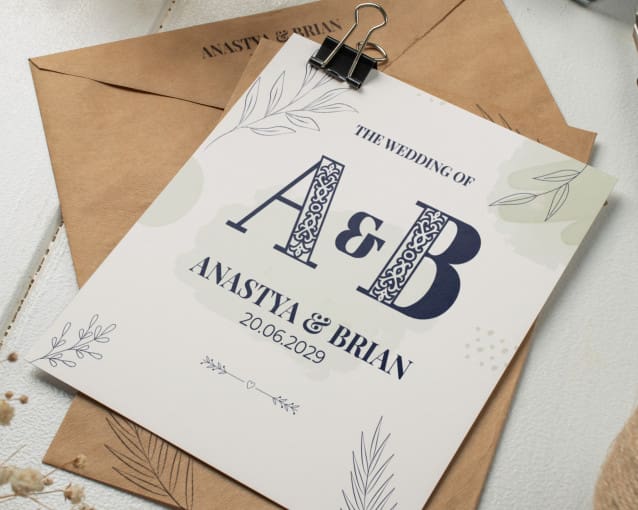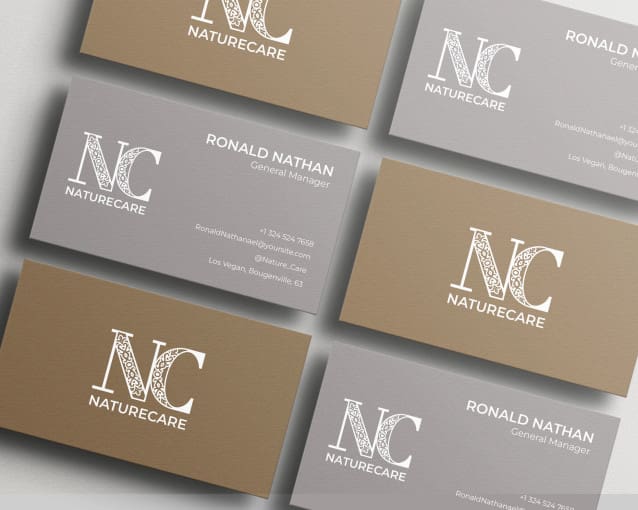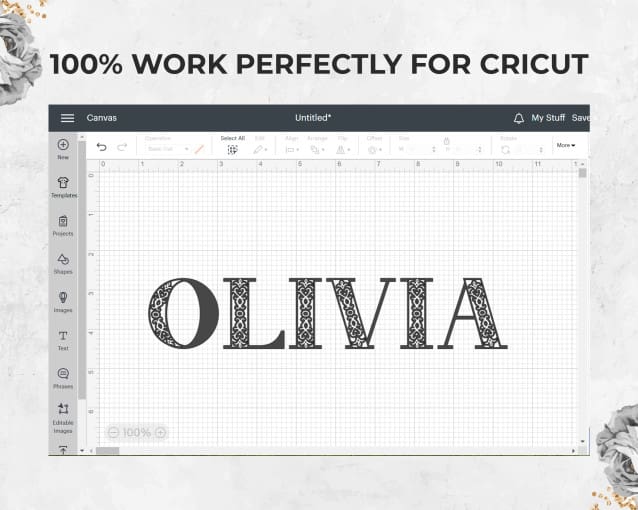
Decorative Olivia Font
Decorative Olivia Font is a typeface that exudes a stylish and elegant impression. Easy to read yet artistic, this font can serve many uses depending on the user. This font is best used largely as it has a medium serif. Modern Decorative Olivia Font is a modern and stylish font. This font is part of the decorative font family.
Modern Decorative Olivia Font can be used as a digital font such as, for promotions on the web and social media, as well as in print forms such as magazines and posters. One product that can be combined with this font is fashion, beauty, and wedding. Magazines that cover fashion and beauty topics can use Modern Decorative Olivia Font for their covers. This font can be used as branding of a product, such as brand tags and posters.
Keeping in mind modern business needs, Modern Decorative Olivia Font is also suitable for personal business cards and business signage that denotes a place, such as cafes, boutiques, and make-up shops.